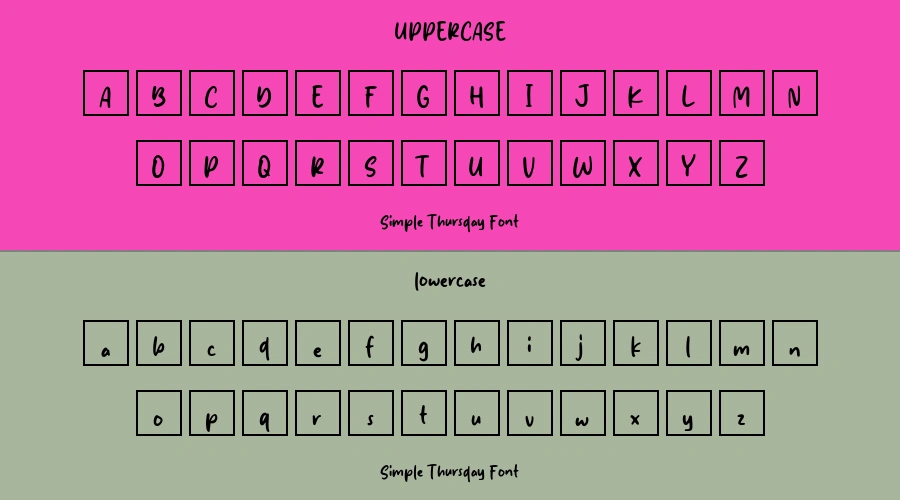
About Simple Thursday Font
Designed with precision, Simple Thursday Font merges elegant spacing with technical excellence in every character. This versatility makes it particularly effective for motion graphics, where originality and market credibility directly impact communication quality. Each letterform demonstrates meticulous craftsmanship.
Technical excellence shines through elements like elegant curves and word marks, enhancing typographic versatility. In corporate communications settings, Simple Thursday Font proves its worth through superior body text reading. The thoughtful execution of stroke contrast and historical reference ensures professional results.